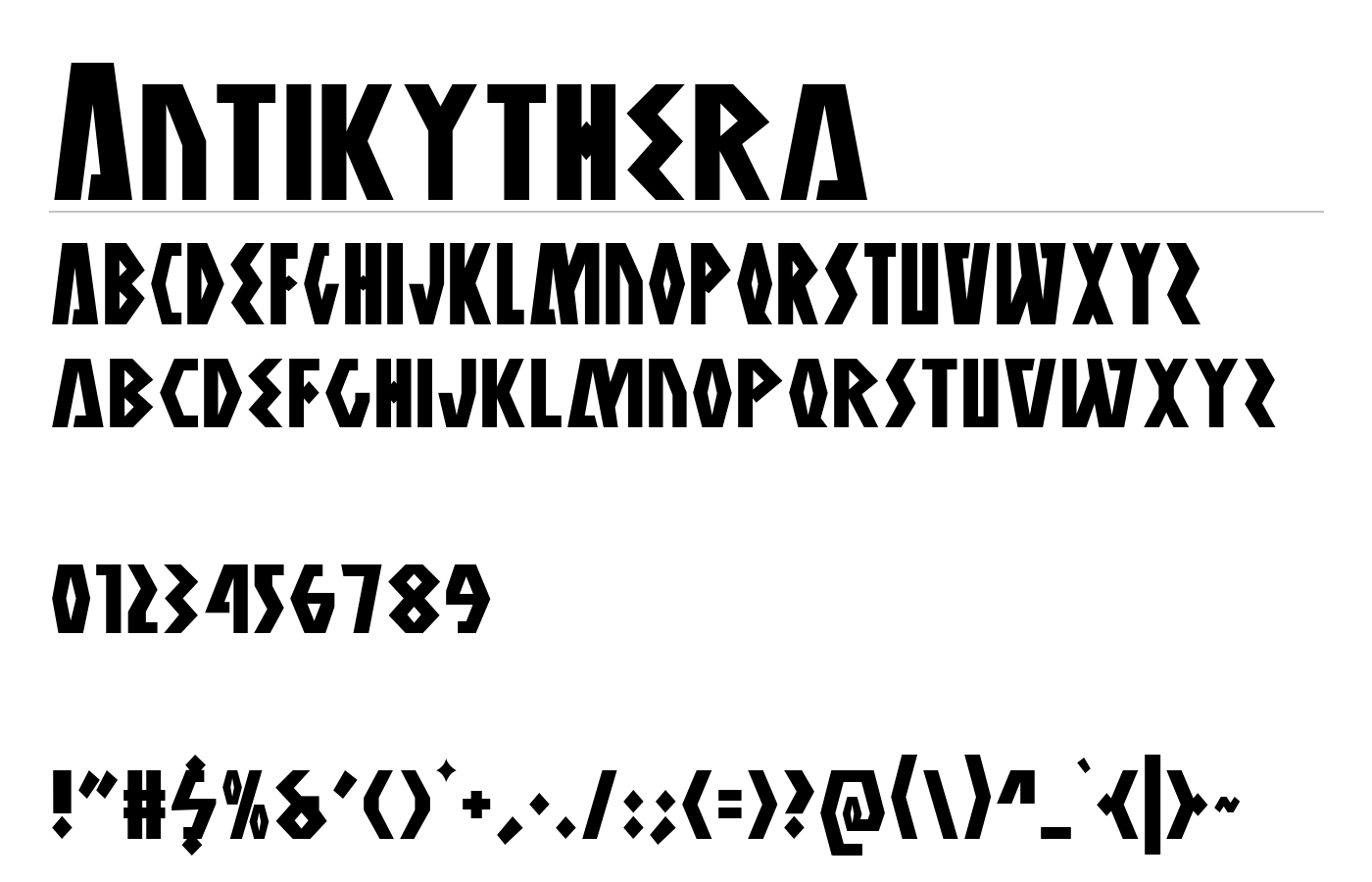
Antikythera is a bold, condensed sans serif font with striking geometric and angular letterforms that evoke an ancient, mysterious vibe. Its high-contrast strokes and sharp edges create a dramatic and powerful presence, making it ideal for headlines, logos, and branding that call for a strong, distinctive look with a historical or adventurous flair. This font works well in contexts where a bold, memorable statement is needed, adding visual impact and a touch of mythic character.
Antikythera Font
About Antikythera Font